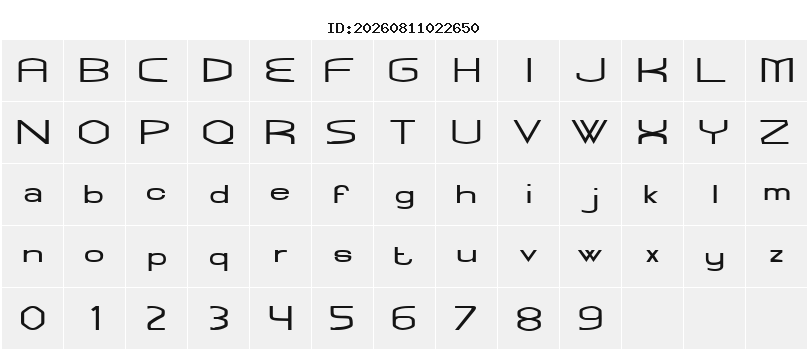
• Font Name: Rubbed
About Rubbed .ttf
Rubbed .ttf is a modern, elegant sans-serif font designed for ultimate readability and visual harmony. Perfect for branding, headlines, web design, and print materials.